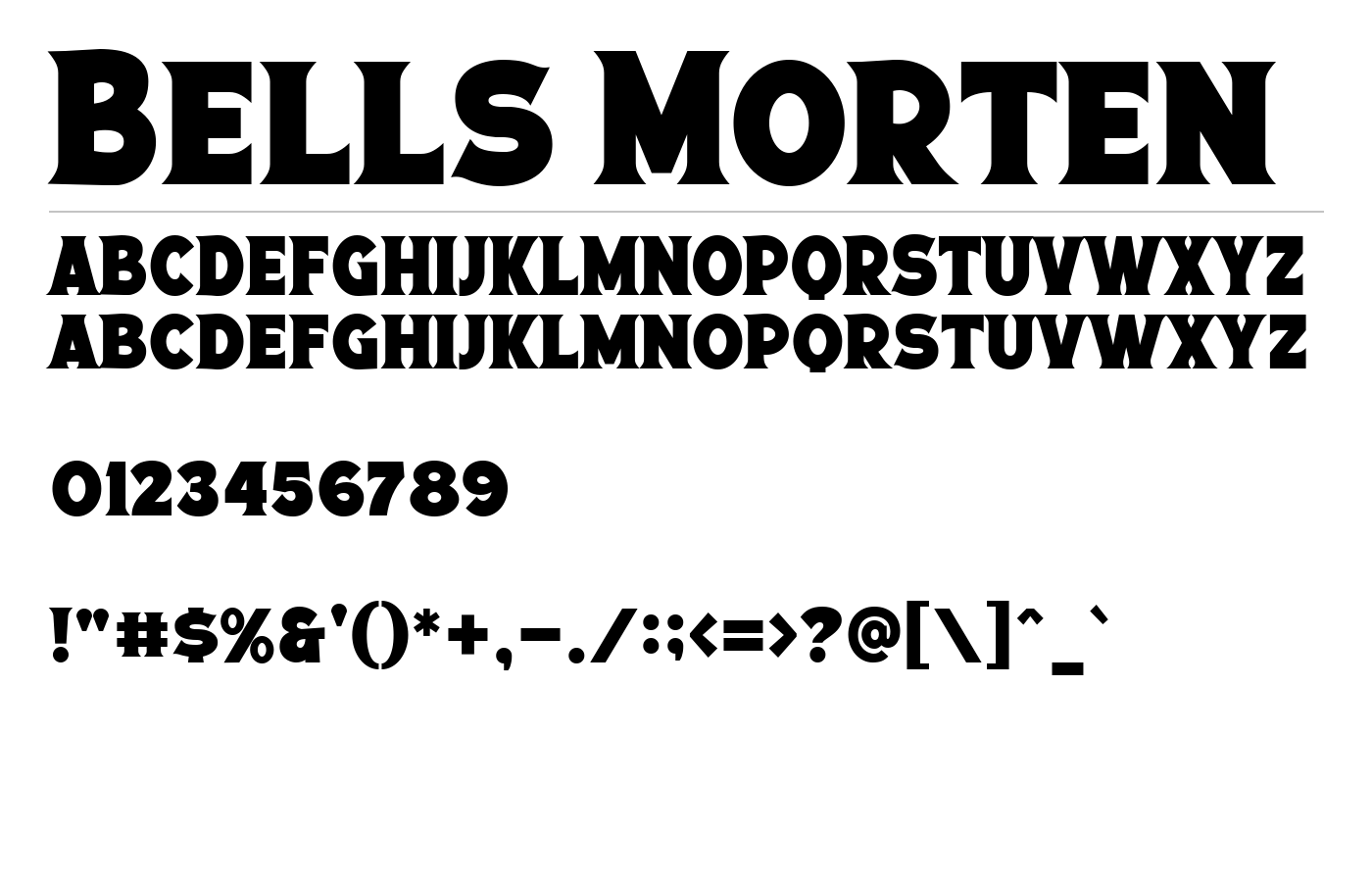
Bells Morten is a bold, serif typeface with a strong, vintage-inspired character. Its wide, heavy letterforms and moderate contrast create an impactful, confident look that works well for headlines, logos, and branding where a sense of tradition and boldness is desired. This font’s distinctive serifs and sturdy shapes make it ideal for creating memorable designs in editorial, packaging, and display uses.
Bells Morten Font
About Bells Morten Font